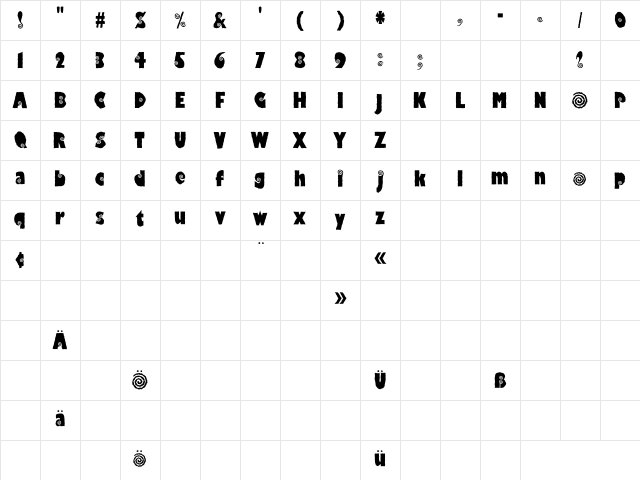
Complete VTHippoCritic Lollypops glyph index. Displaying only characters natively supported by VTHippoCritic Lollypops font.
VTHippoCritic is a composed and adaptable typeface that performs quietly and consistently across a wide range of design contexts.